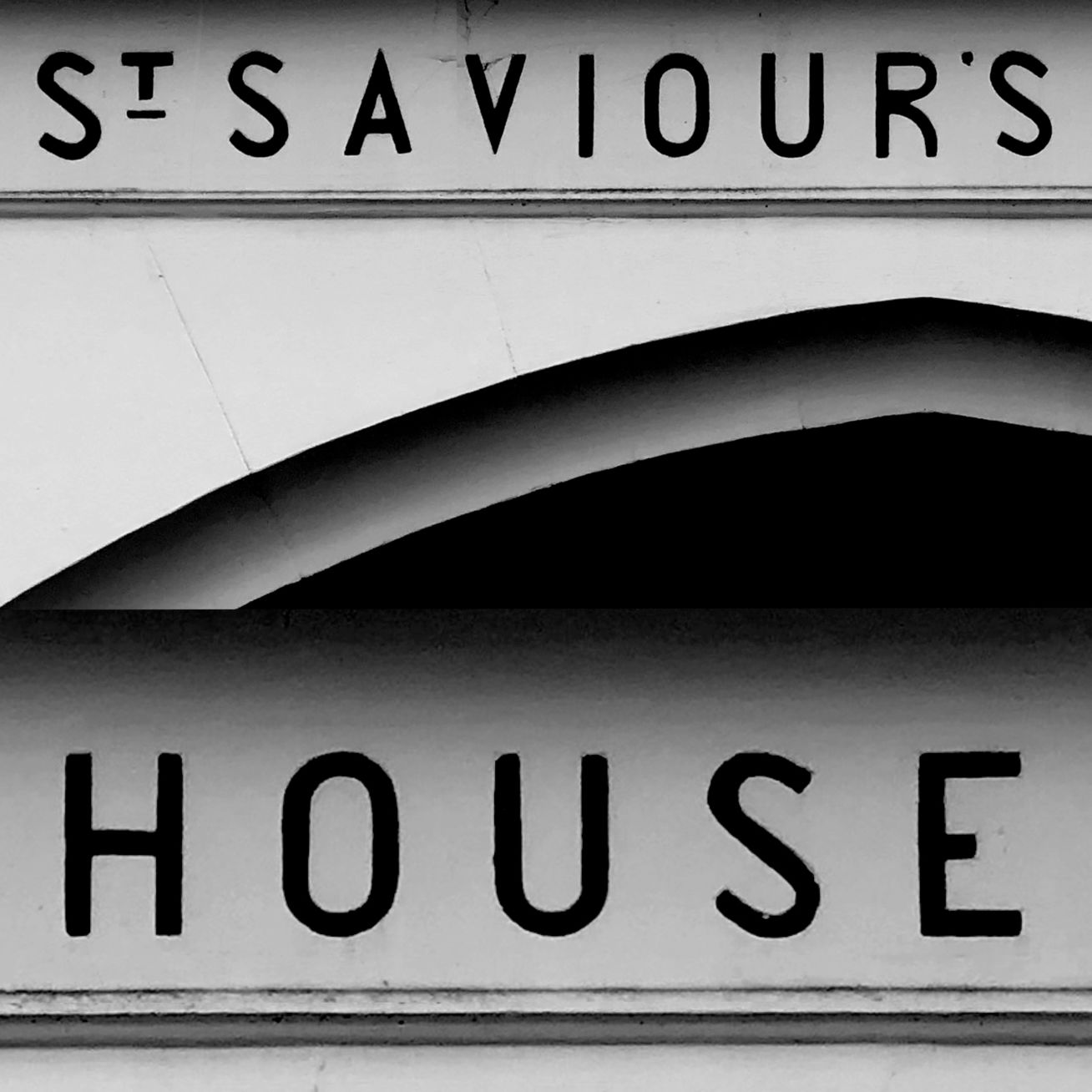
Bermondsey Sans
Bermondsey Sans is a generously spaced and somewhat constructed architectural alphabet, available in a single style. Our design was inspired by found vernacular letters, high up on a building facade in South London – ST. SAVIOUR'S HOUSE carved in stone and painted in black – The original letters are simple engineered forms, full of character and charm. The lowercase (and the rest of the font, numbers, sorts, etc.) is our invention, based on the clues given by the uppercase letters. Bermondsey Sans, although born as large point size letters, work extremely well in very small sizes where it is easily recognisable.